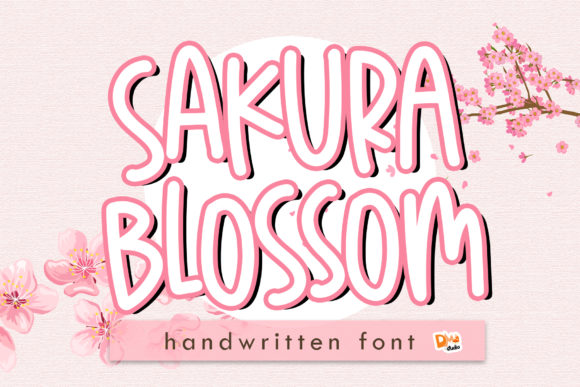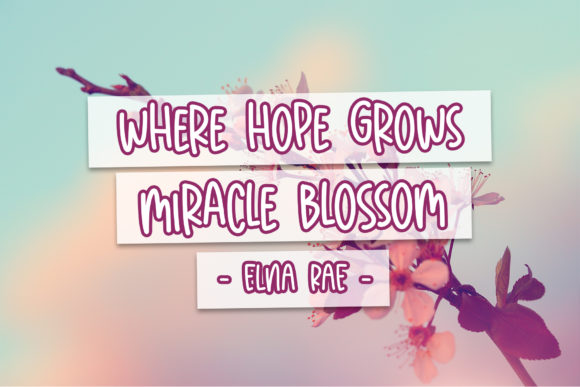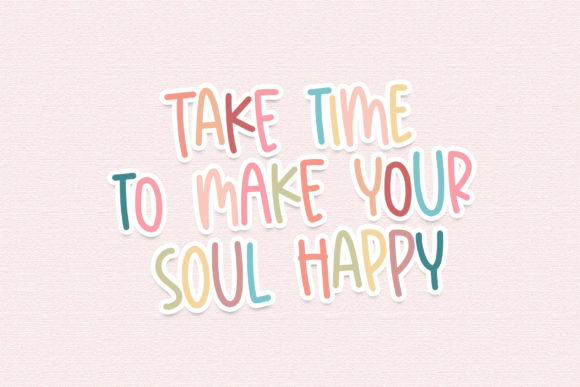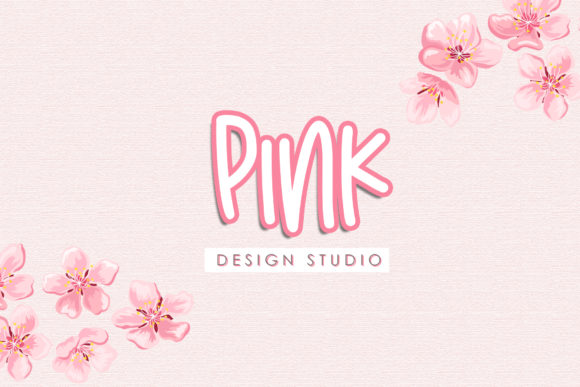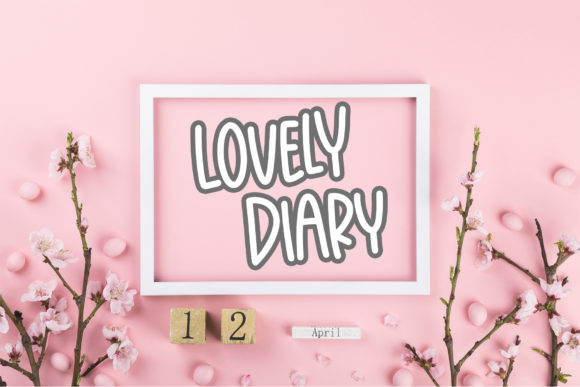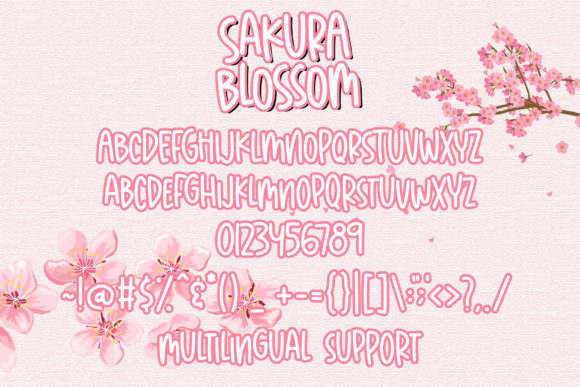
Sakura Blossom Font
About Sakura Blossom Font
Sakura Blossom: Embrace the Sweet and Friendly Handwritten Font
Introducing Sakura Blossom, a font that exudes sweetness and friendliness with its delightful handwritten style. Its natural and unique appearance makes it an incredibly versatile choice for a wide pool of designs. Whether you’re crafting enchanting wedding invitations, designing charming greeting cards, creating captivating social media posts, or any other project that needs a touch of warmth and authenticity—Sakura Blossom is the perfect companion. Let your imagination run wild with this font, as it knows no limits in adding a touch of beauty to your creative ideas!
The allure of Sakura Blossom lies in its sweet and friendly vibe. Each letter is thoughtfully crafted to convey a sense of approachability, making your designs feel warm and inviting.
Designing with Sakura Blossom is a delightful experience. Its natural strokes and unique style bring a touch of authenticity to your creations, making them truly special and captivating.
Fall in love with the versatility of Sakura Blossom. Whether you’re designing for joyous celebrations, heartfelt messages, or simply expressing creativity, this font adapts effortlessly to suit your creative vision.
Unleash your imagination with Sakura Blossom. Its natural and unique style allows you to create designs that reflect your personality and evoke emotions in a genuine and heartfelt manner.
Gorgeous designs come to life with Sakura Blossom’s sweet and friendly touch. Whether you’re crafting wedding invitations that enchant, designing heartfelt cards, or creating engaging social media content, this font adds a touch of warmth that resonates with your audience.
In conclusion, Sakura Blossom is more than just a font; it’s a sweet and friendly masterpiece that invites you to explore the endless possibilities of creativity. Embrace its natural charm, and let it become the heart of your most cherished projects. Whether you’re celebrating love, expressing gratitude, or engaging in any creative endeavor, Sakura Blossom will be your loyal companion, adding a touch of warmth and authenticity. Allow this font to unlock the full potential of your creativity, and watch as your designs come alive with the sweet and friendly spirit of Sakura Blossom. The only limit is your imagination!